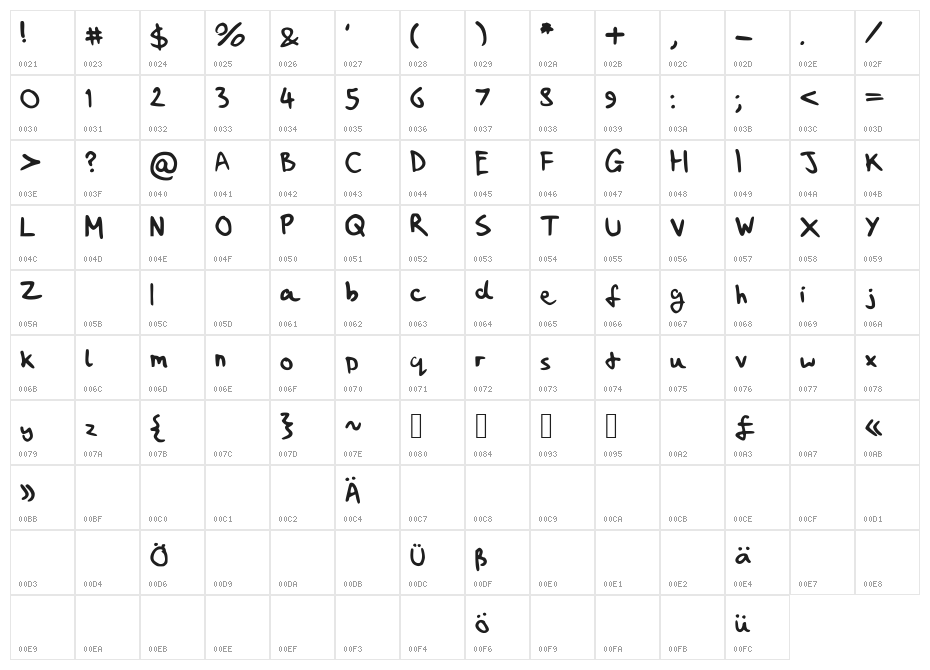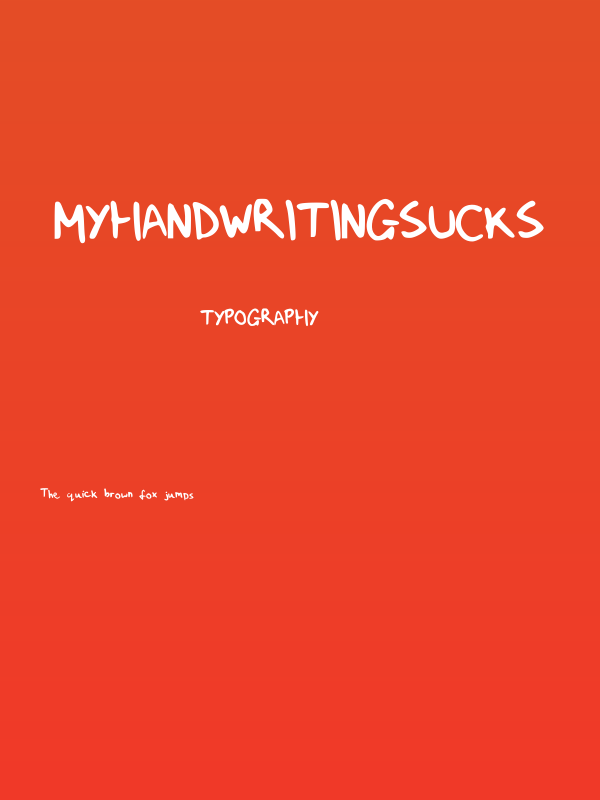
MyHandwritingSucks Font
MyHandwritingSucks Description
A playful, casual handwritten font with irregular shapes and varying stroke thickness, mimicking natural handwriting with a bold marker. The characters are rounded and slightly uneven, giving a personal and informal feel.
| Overall Style | Playful, Informal, Casual |
| Use Case | Headlines, Short text, Personal projects, Informal branding |
| Proposed Projects | Greeting cards, personal notes, children's books, informal posters, social media graphics. |